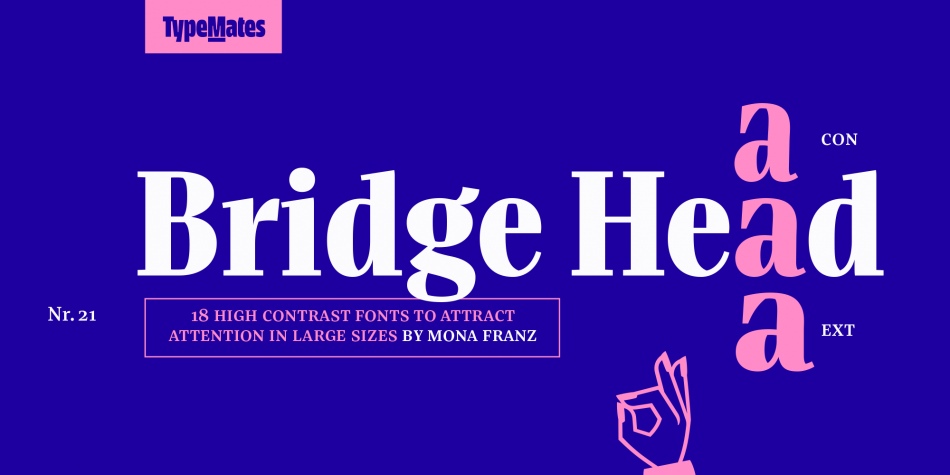
Bridge Head Font
Bridge Head Font is perfect for architectural firm branding, engineering company logos, construction project signage, infrastructure development materials, civil engineering presentations, urban planning documents, bridge construction marketing, structural design portfolios, and industrial project communications.
What makes Bridge Head Font exciting is its powerful structural character that embodies the strength, precision, and engineering excellence required for major infrastructure projects. The font features bold, geometric letterforms with strong architectural qualities that convey stability, durability, and professional competence. Its robust design philosophy reflects the critical importance of structural integrity in bridge construction and engineering, making it perfect for organizations that want to communicate technical expertise, reliability, and the unwavering strength necessary for connecting communities through superior infrastructure development.
Bridge Head Font family includes various structural weights such as Regular, Medium, Bold, and Heavy variations, often featuring condensed versions optimized for technical documentation. The family may include engineering-inspired alternates, structural symbols, and industrial decorative elements that enhance the font's architectural aesthetic, providing designers with comprehensive options for creating powerful brand identities that resonate with construction and engineering professionals.